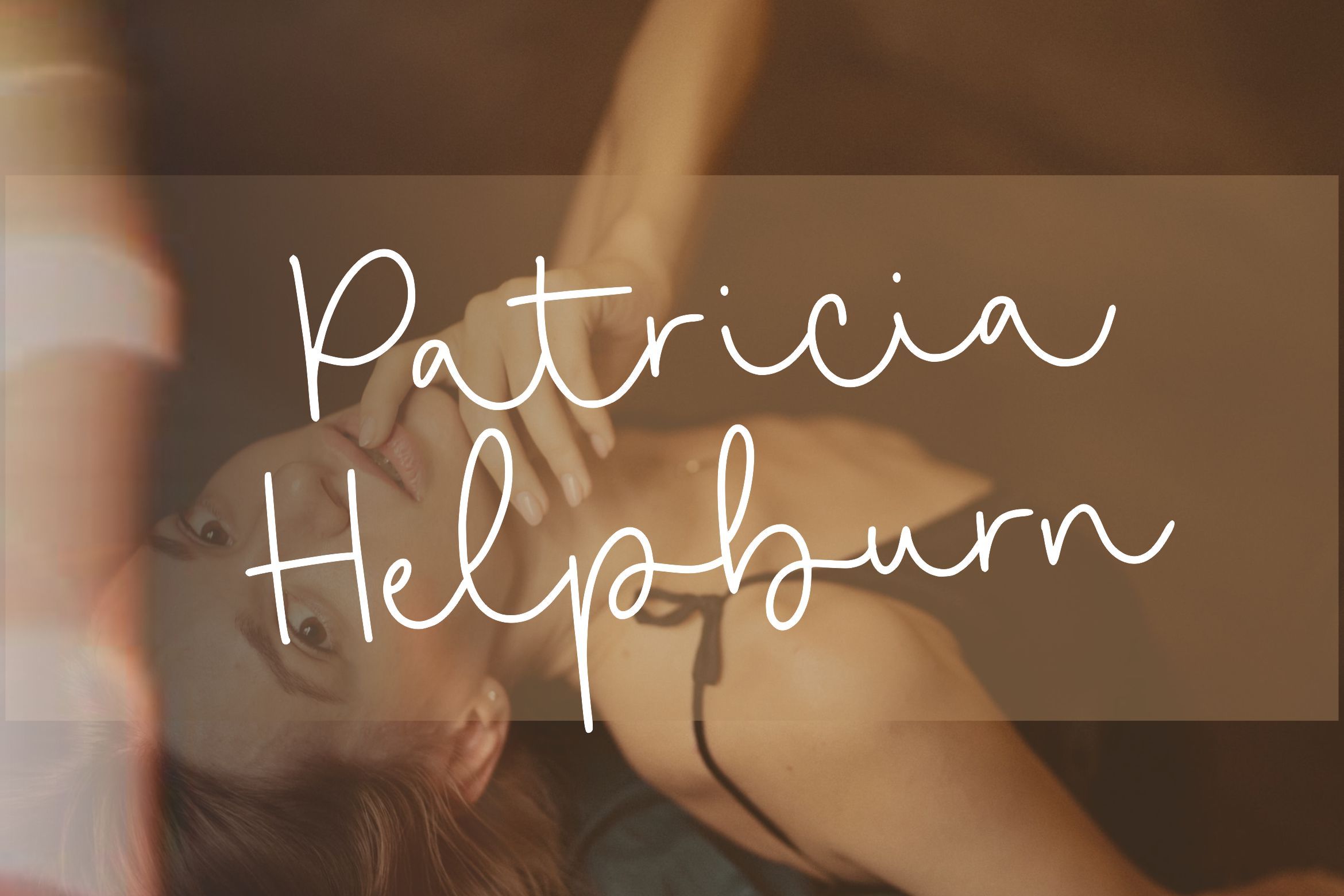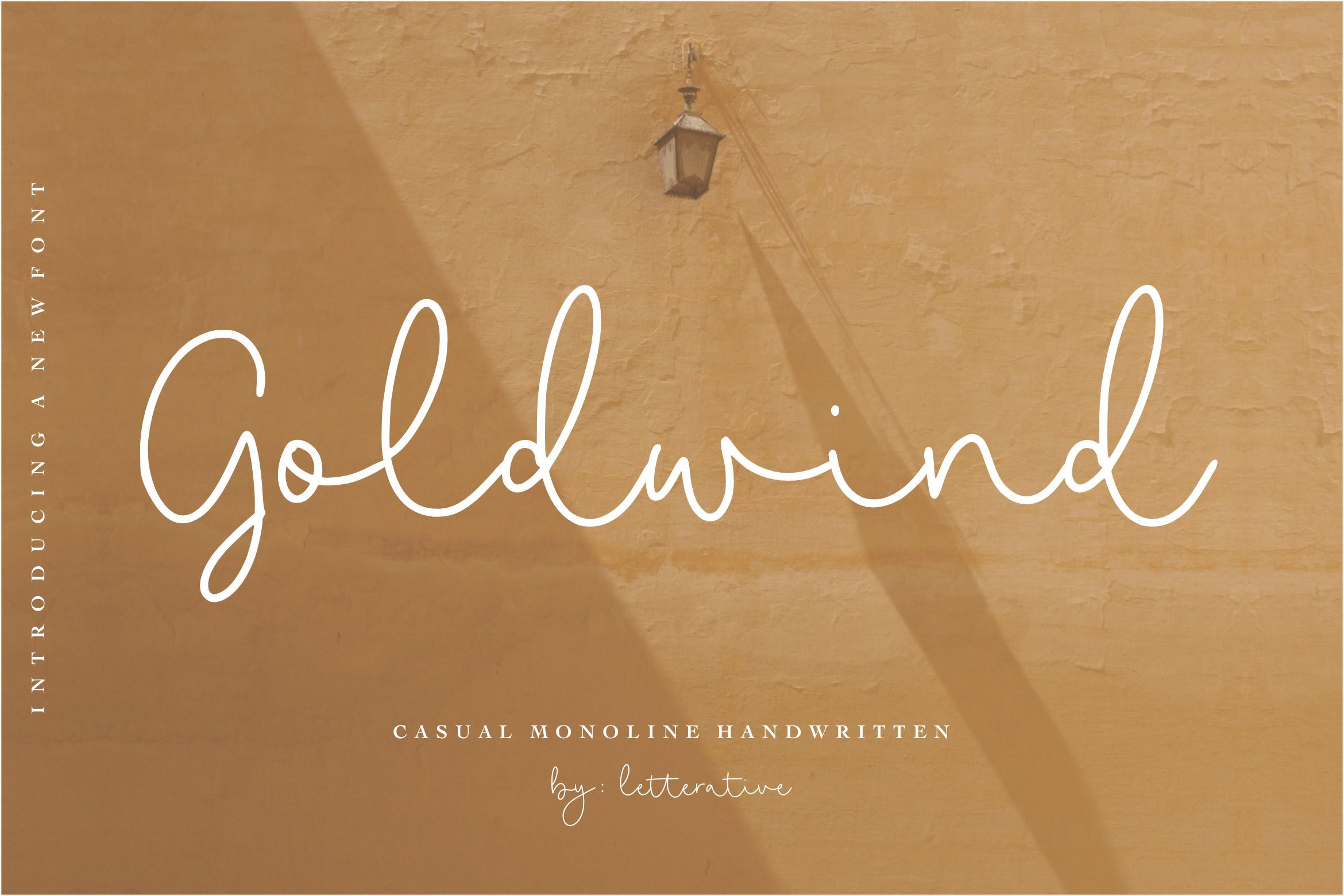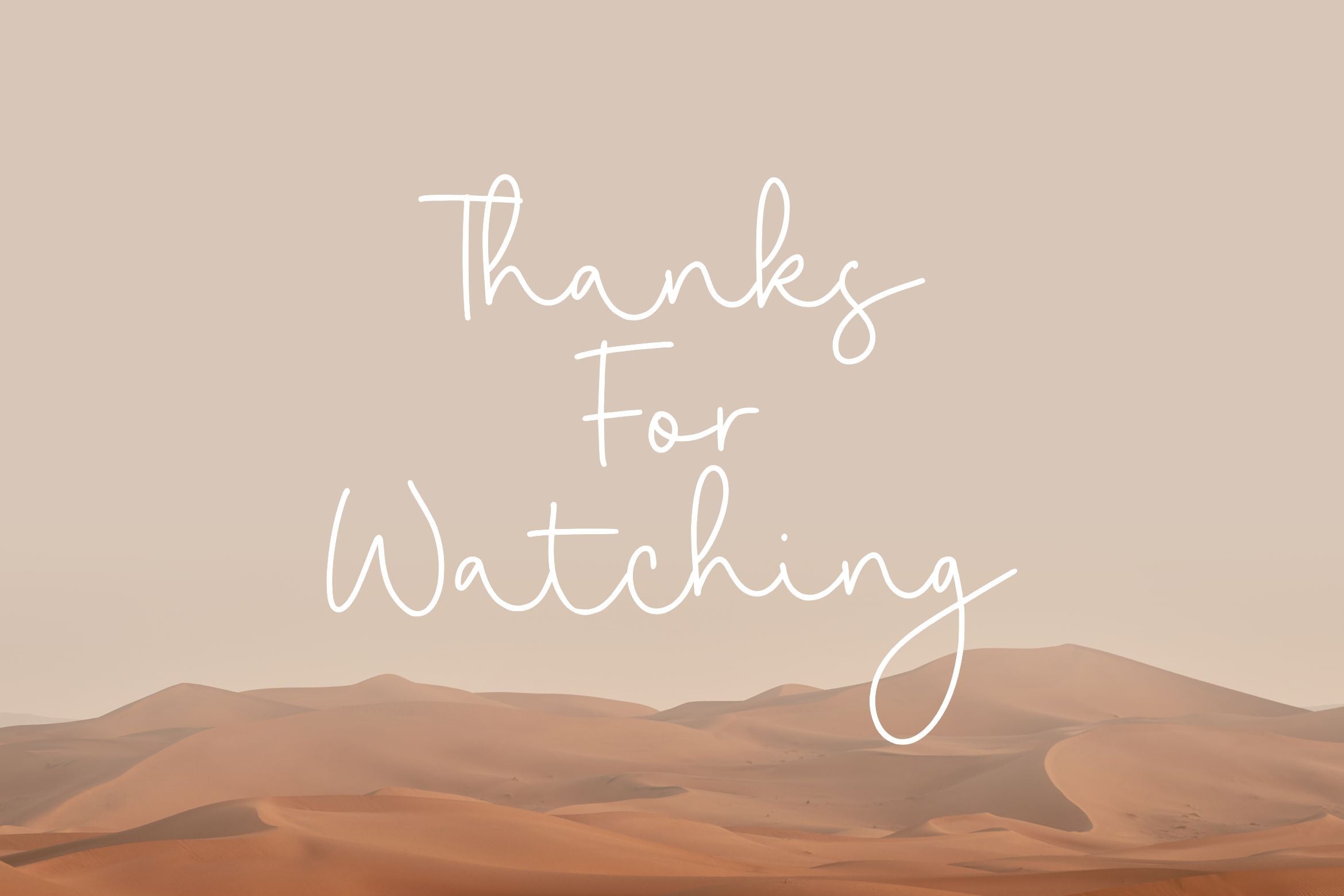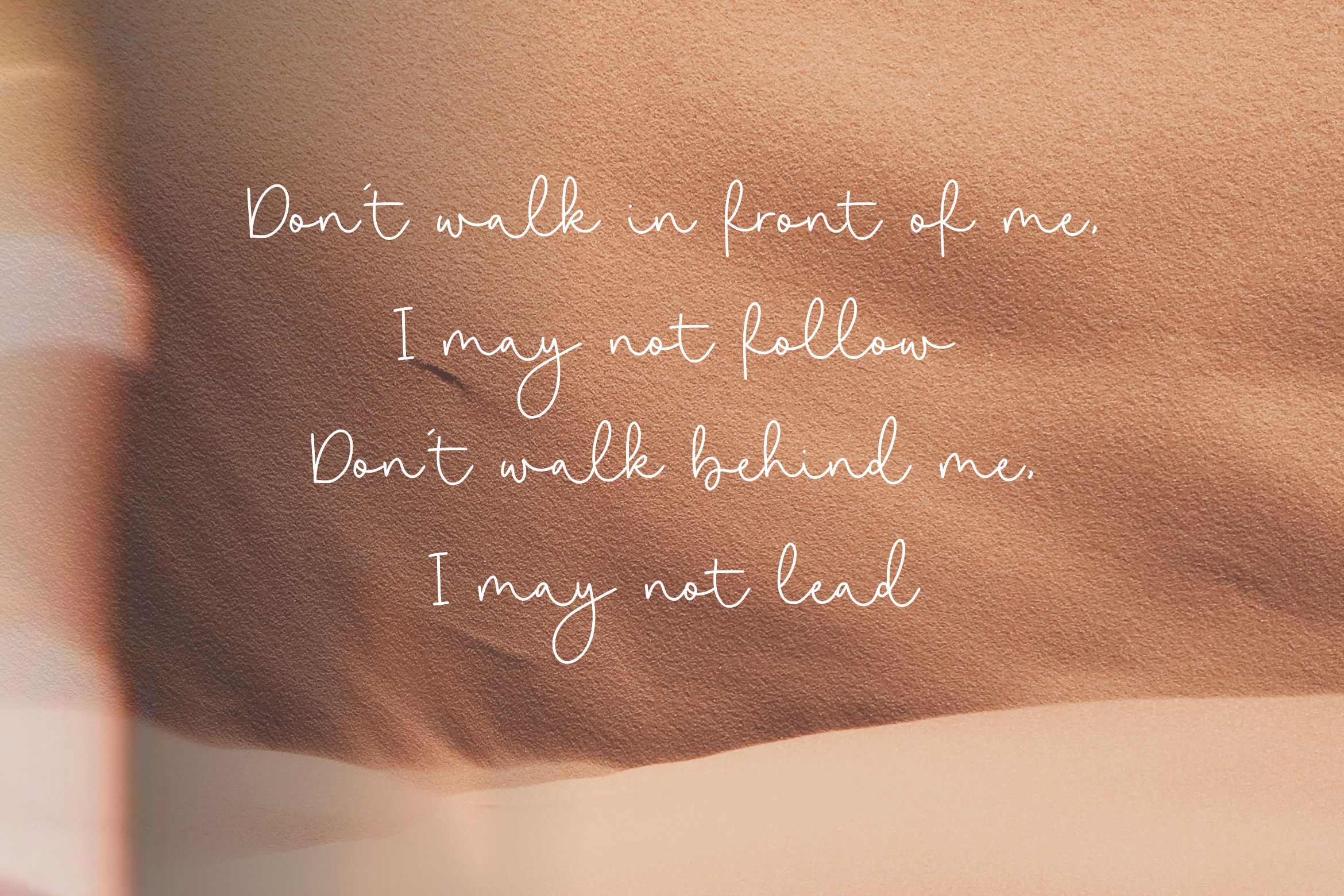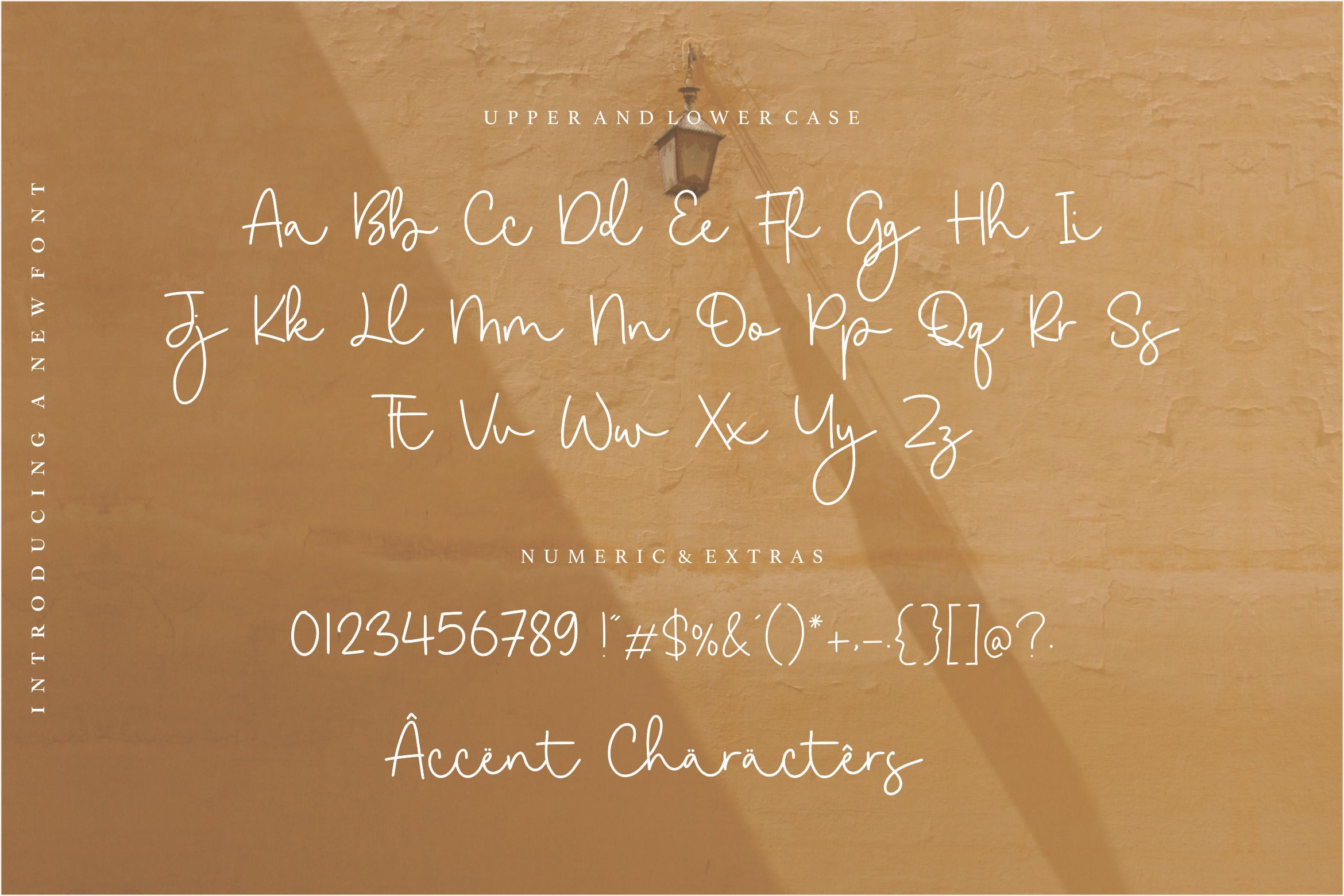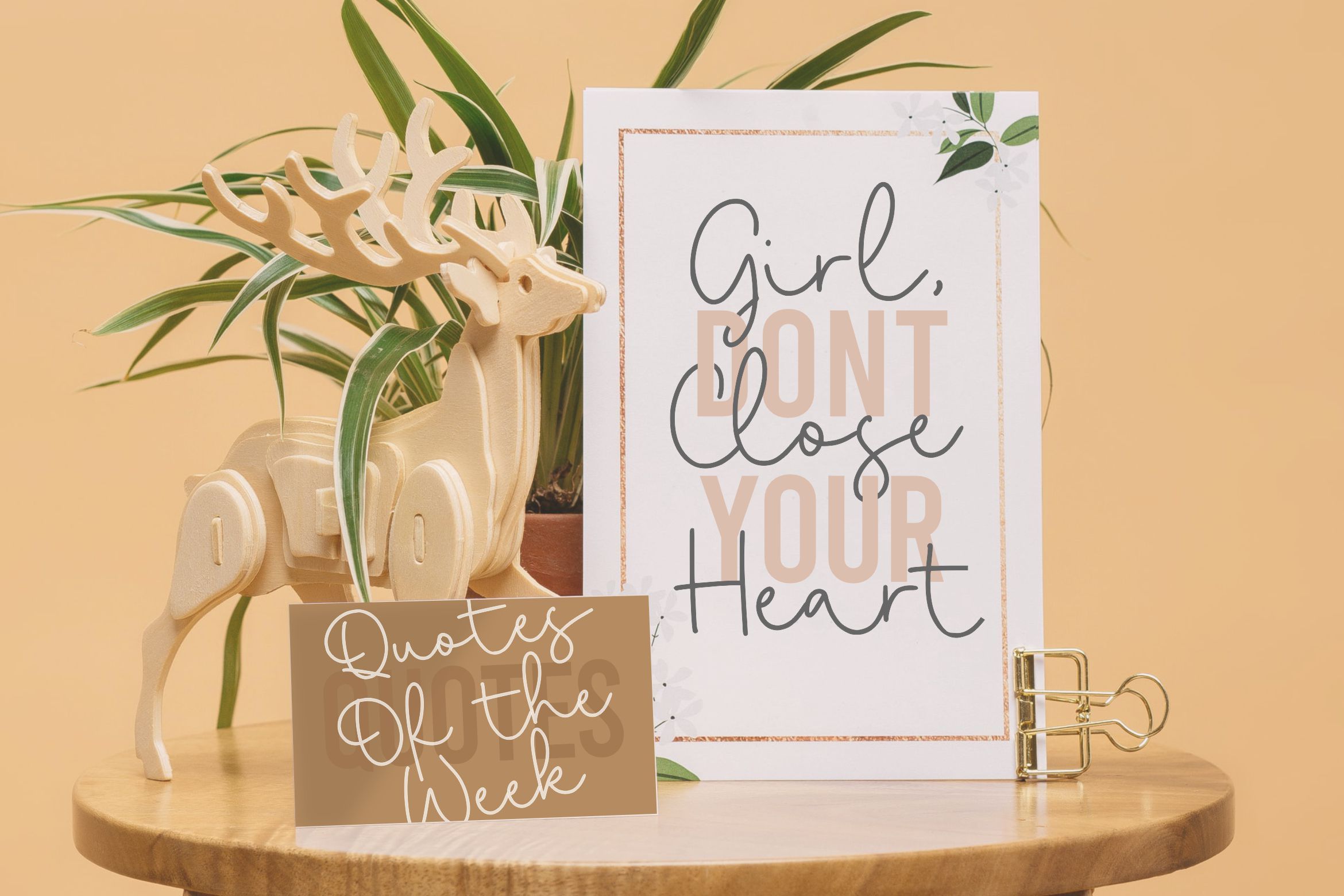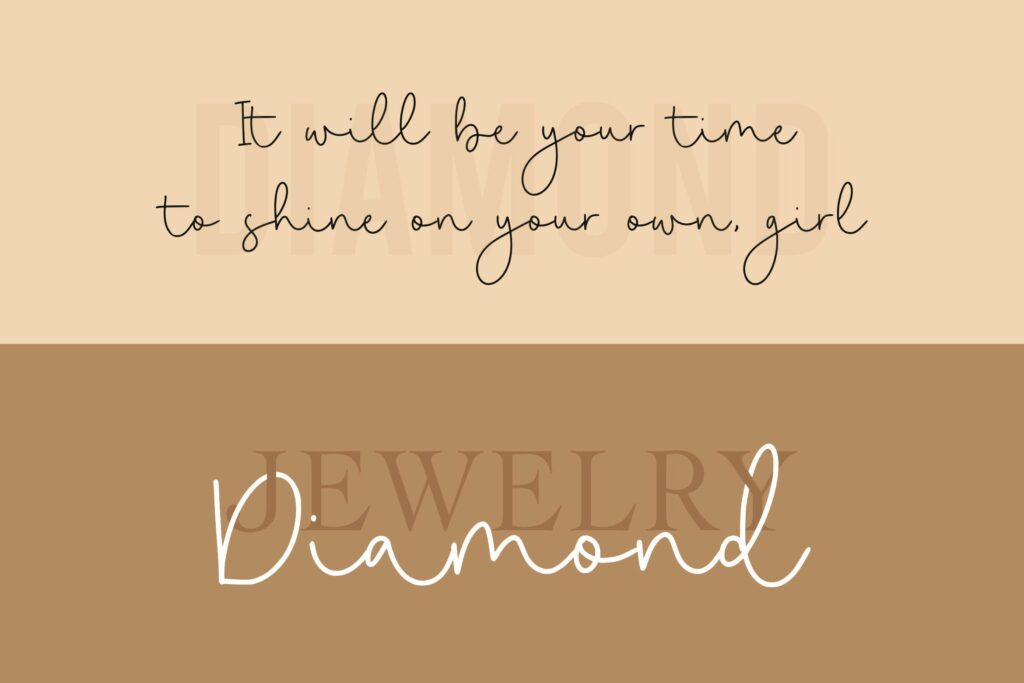
Goldwind Casual Monoline Handwritten Font
About Goldwind Casual Monoline Handwritten Font
Introducing by Letterative Studio : Goldwind Font Goldwind is a Casual Monoline Handwritten Font Goldwind is perfect for product packaging, branding project, megazine, social media, wedding, or just used to express words above the background. This font includes : TTF and OTF Goldwind also multilingual support Enjoy the font! Feel free to comment or feedback Send me PM or email Thank you!